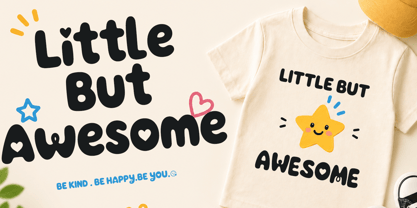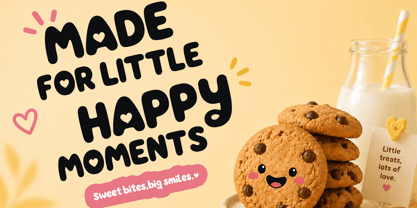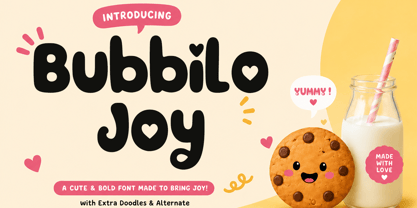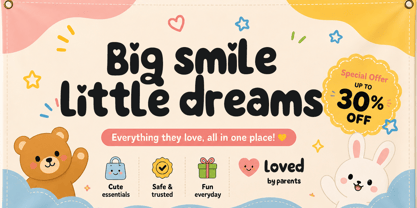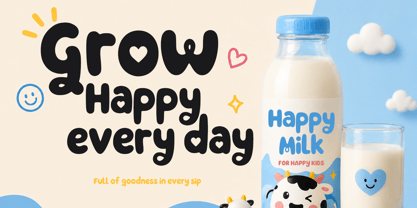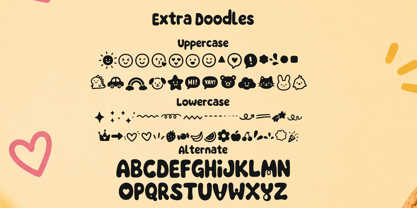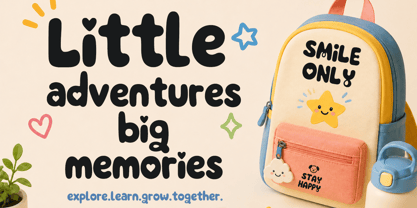
Bubbilo Joy
by Cocodesign
The Bubbilo Joy Font Family was designed by Muhammad Zaini and published by Cocodesign. Bubbilo Joy contains 2 styles and family package options. More about this family
Bubbilo Joy is a cute and bold display font designed to bring happiness into every design. With its soft rounded shapes and playful personality, this font instantly creates a warm, friendly, and eye-catching look.
Perfect for projects that need a fun and cheerful vibe, Bubbilo Joy works beautifully for branding, packaging, kids products, posters, and social media designs. Each letter is crafted with smooth curves and balanced weight, making it easy to read while still full of character.
This font also comes with delightful extras to enhance your creativity, giving you more flexibility to create unique and expressive designs.